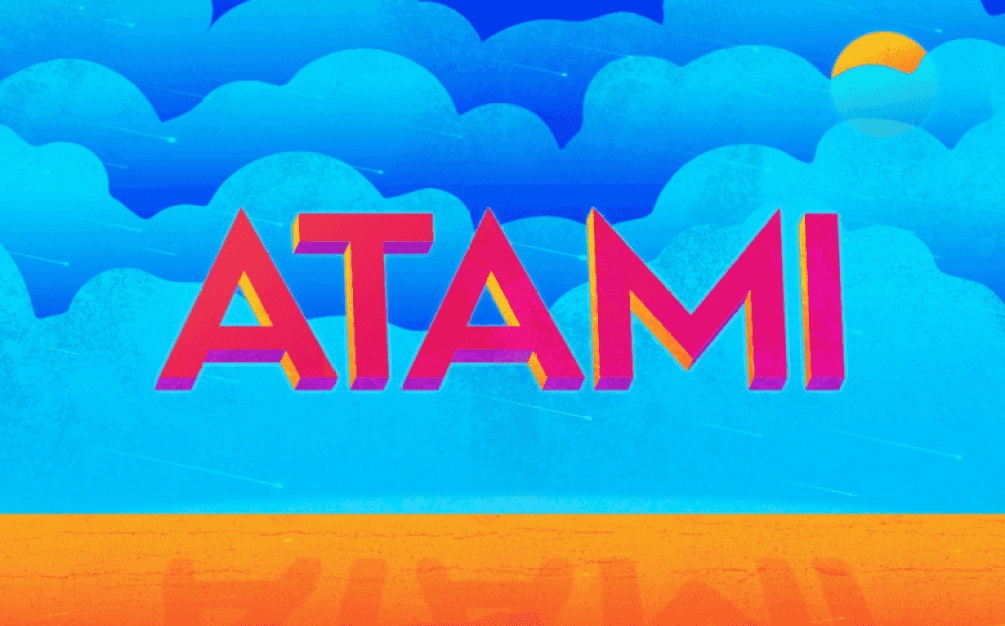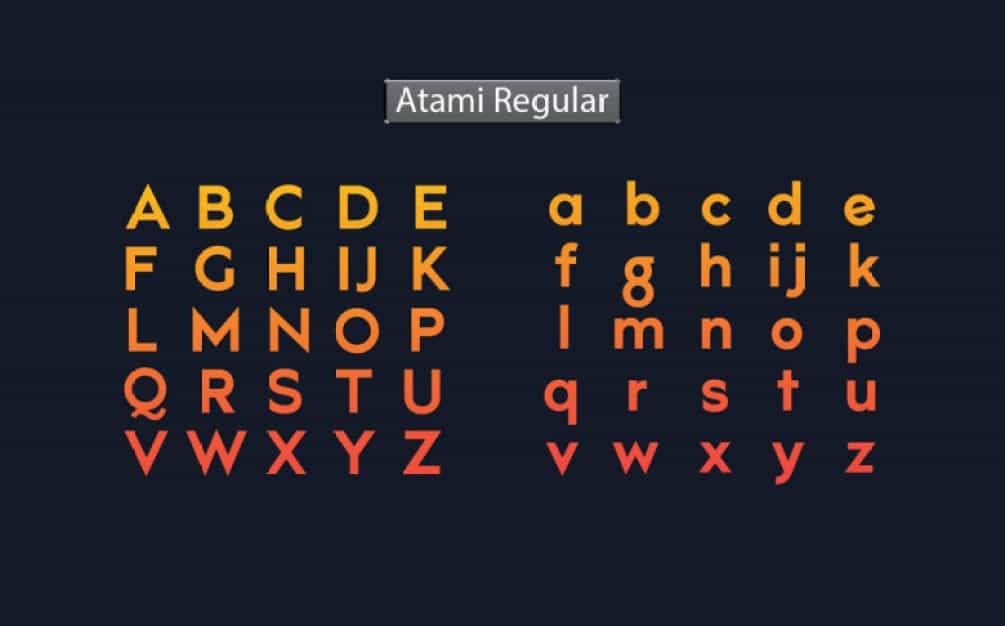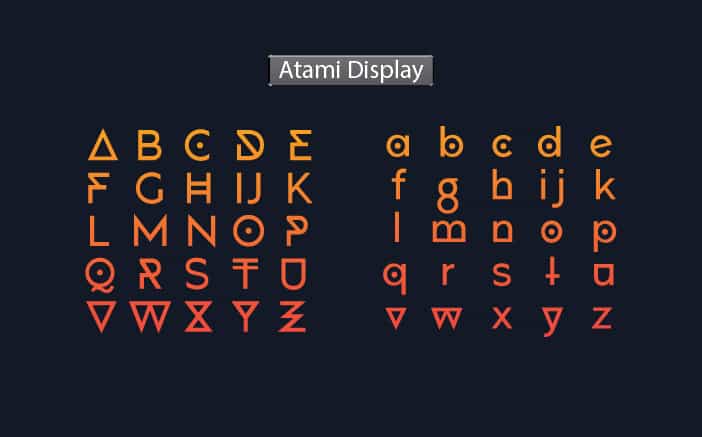
Atami is the elegant san serif font properly suitable for creating logotypes. Available for commercial use, Atami includes six styles: Atami Regular (bold), Stencil Bold and Display Bold is used in majority of applications.